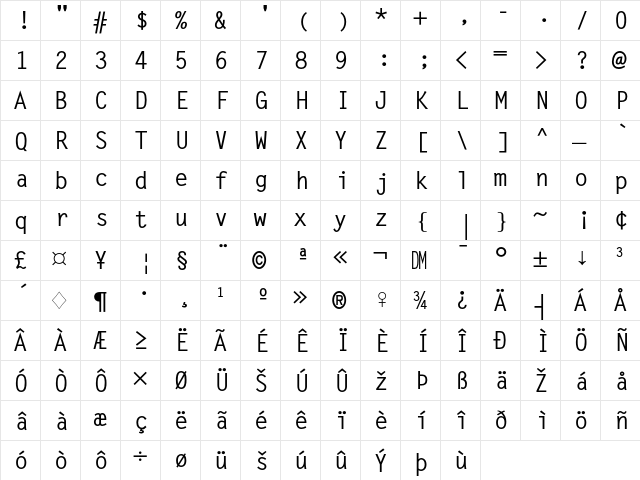
Letter Gothic Bold
Design Context for Letter Gothic Typeface
Letter Gothic has the quiet confidence of well-executed sans-serif typography: versatile, unobtrusive, and dependable at any size. The heavy weight commands attention and anchors typographic hierarchies.
Well-suited to navigation labels, product packaging, and anywhere legibility at scale is essential.
Font Pairing: Use Letter Gothic for headlines alongside a lighter-weight sans or serif for body copy to establish clear visual hierarchy.
Pro Tip: Use Letter Gothic for UI labels, navigation, and short-form body copy where clean legibility is the priority.